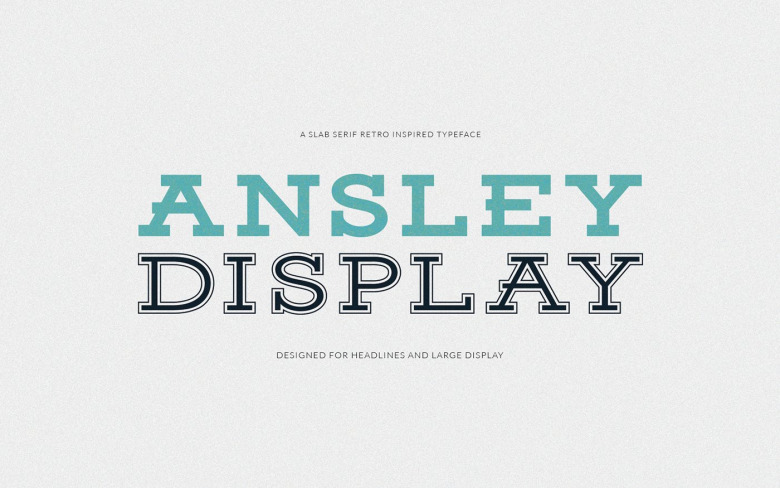
Ansley Display Font
Ansley Display is a past and modern slab serif retro inspired display font Kady Jesko made when he couldn’t finds many free retro typefaces. These fonts free for commercial and personal use.